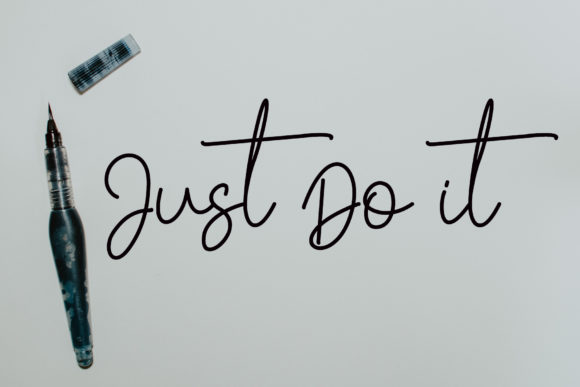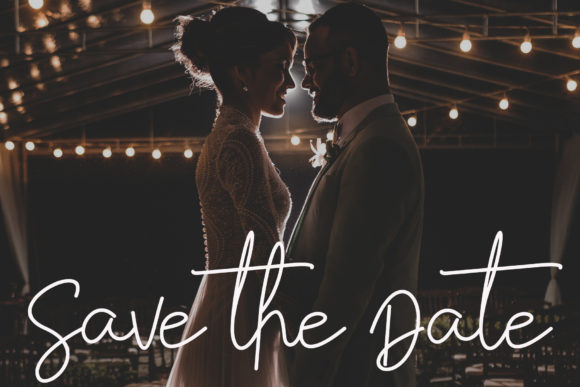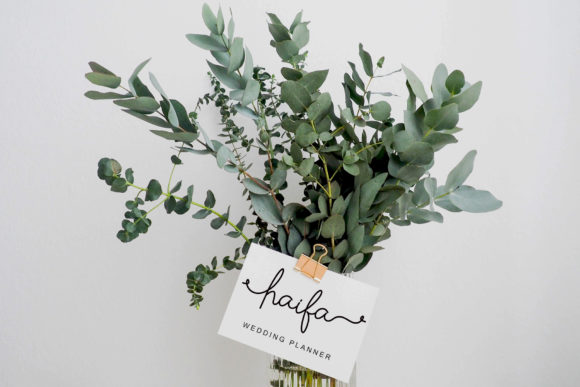
Introduction to Lattiefa Font
Do you ever find yourself browsing through a beautiful wedding invitation and wondering what makes it stand out? The elegant script, the delicate swashes, and the perfect balance of curves and lines all come together to create a truly special design. For designers, finding the right font can make all the difference in bringing a creative project to life. And that’s where Lattiefa Font comes in – a stunning script font that’s perfect for any design project that needs a touch of sophistication.
Lattiefa Font is more than just a pretty face, it’s a valuable resource for designers who want to elevate their work. With its beautiful swashes and ligatures, it’s perfect for logos, wedding invitations, social media posts, signatures, and much more! Plus, it’s available for free download, making it an accessible design resource for anyone.
Key Features of Lattiefa Font
- Unique, elegant script font perfect for headings and titles
Honest Review: Lattiefa Font
As a designer, I’m always on the lookout for new design resources to elevate my creative projects. Recently, I came across the Lattiefa Font, and I must say it’s been a game-changer.
Here’s what works well: ✨ The font’s modern and sleek design makes it perfect for any contemporary project. The high-quality vectors are easily scalable, ensuring that your design looks crisp and clear on any device. Plus, the transparent background option gives you complete flexibility when it comes to layering and composition.
Overall, I’m impressed with the Lattiefa Font’s potential. It’s a great design resource for personal projects or non-commercial use, and its high quality is undeniable. If you’re looking for a fresh and modern font to elevate your creative project, the Lattiefa Font is definitely worth checking out.
- High-quality vectors for crisp and clear design
- Transparent background option for flexible composition
- Modern and sleek design
- Limited character set may require additional font pairing
Getting the Most Out of Lattiefa Font
For optimal results, use the Lattiefa Font with a transparent background. This will allow you to achieve a high-quality design with a clean and minimalist look. Additionally, experiment with different font sizes and styles to create a unique and creative project.
The Lattiefa Font is ideal for various design projects, including logos, business cards, and social media graphics. Its elegant and sophisticated design makes it perfect for creative projects that require a touch of luxury and sophistication.